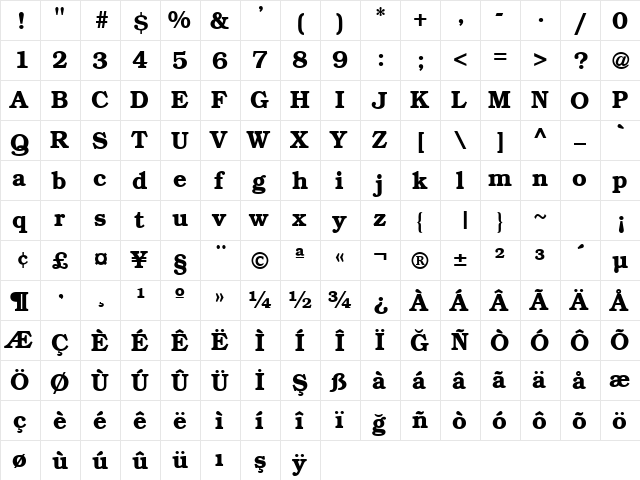
TR Bookman Bold Font Preview
TR Bookman Bold
Design Context for TR Bookman Typeface
TR Bookman takes a measured approach to typography — its balanced proportions and neutral character make it a reliable workhorse for both digital and print work. The heavy weight commands attention and anchors typographic hierarchies.